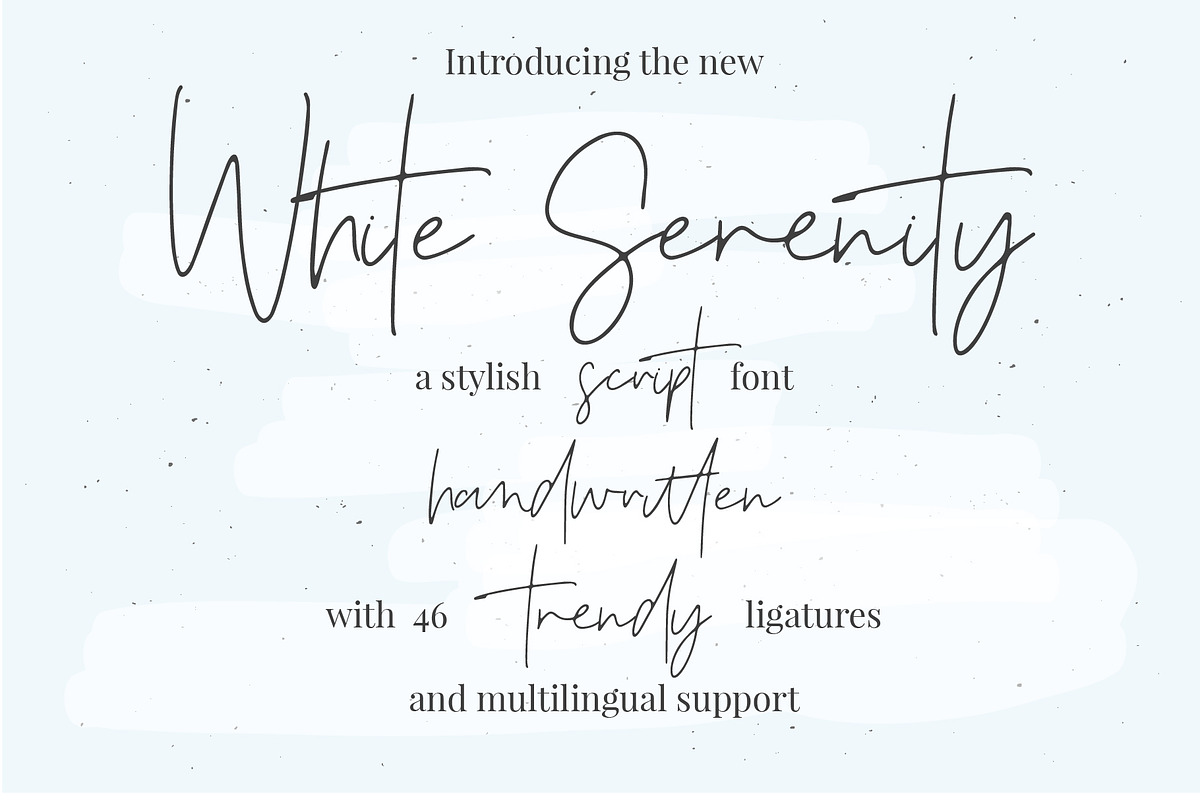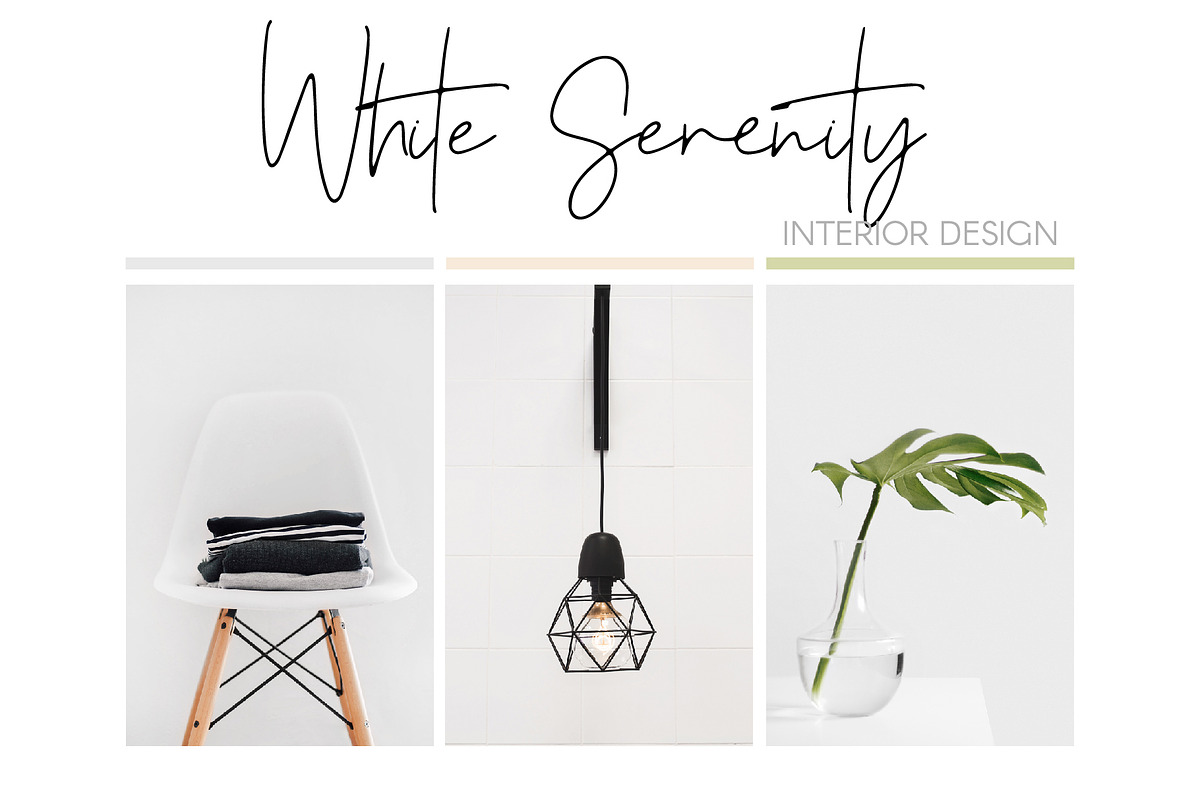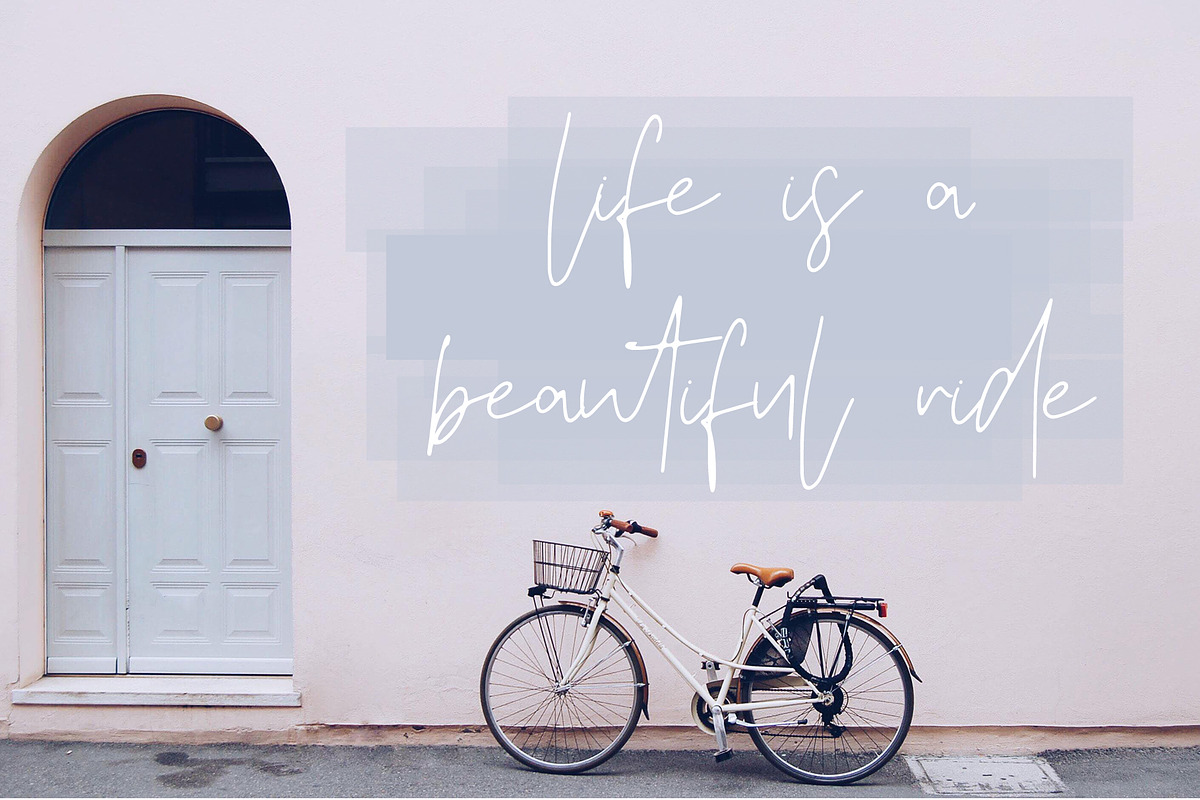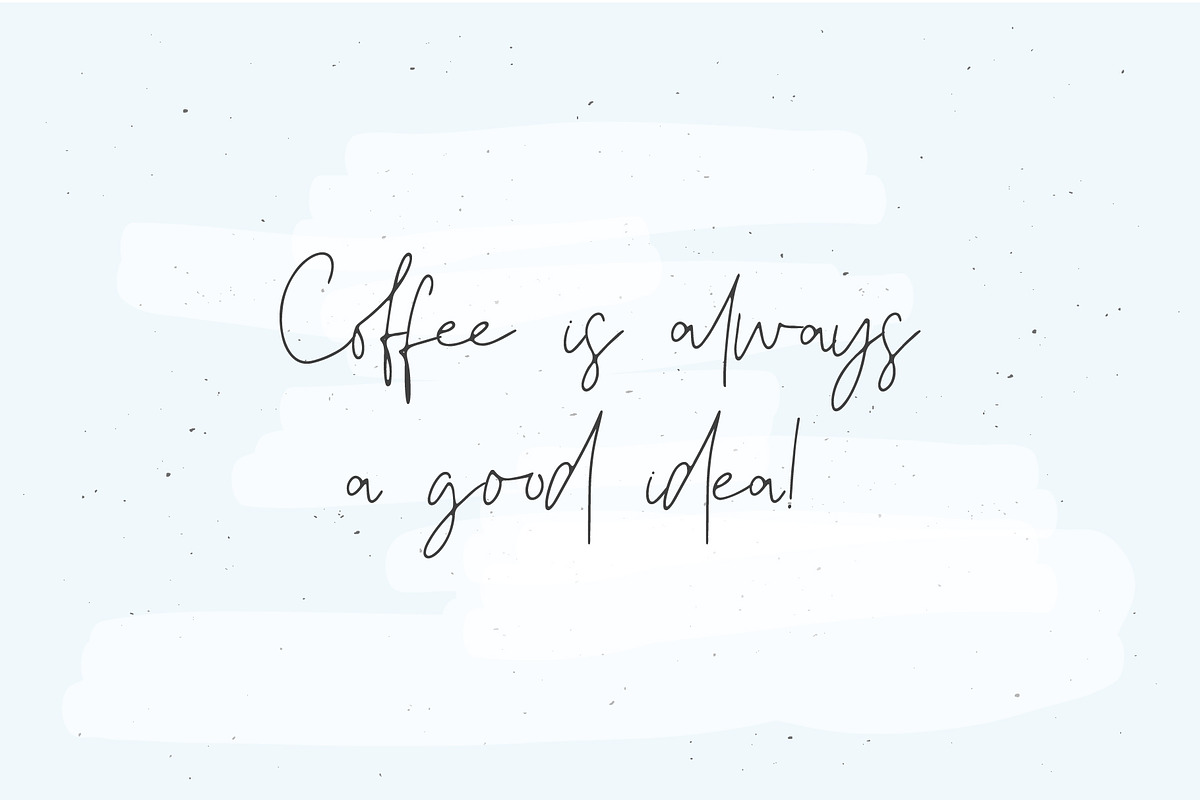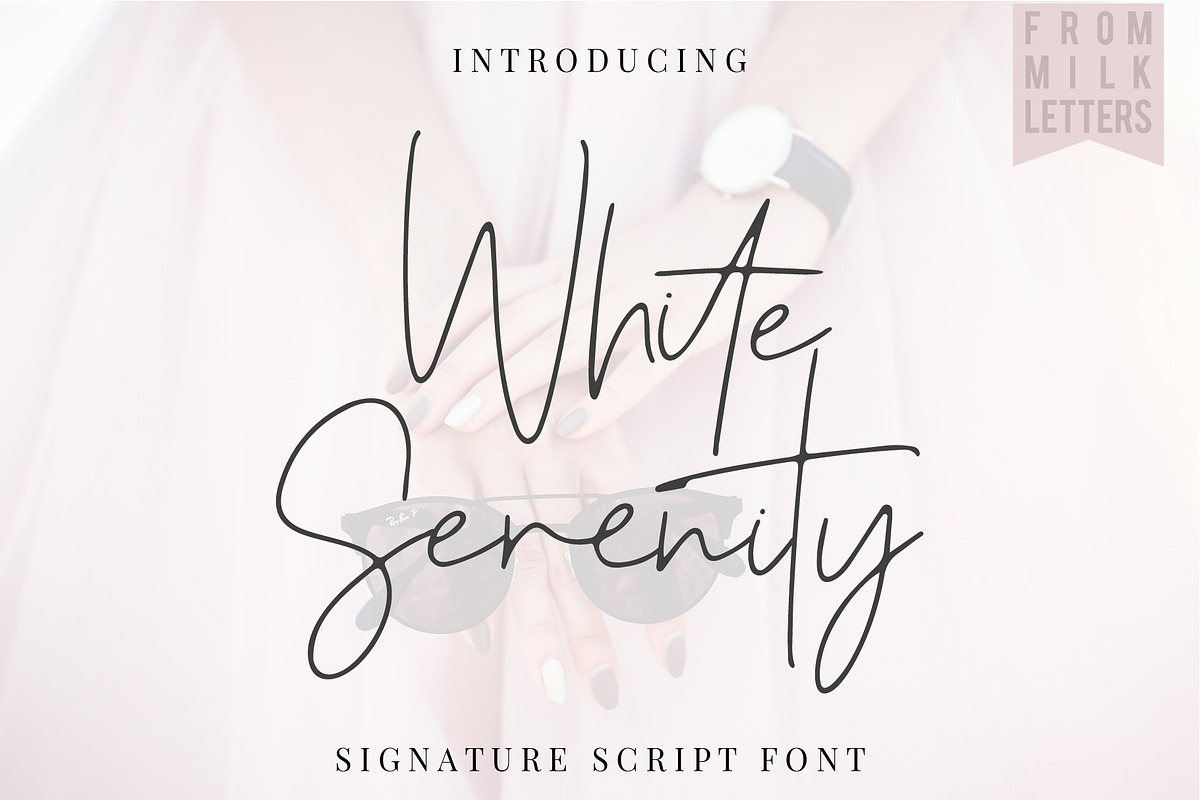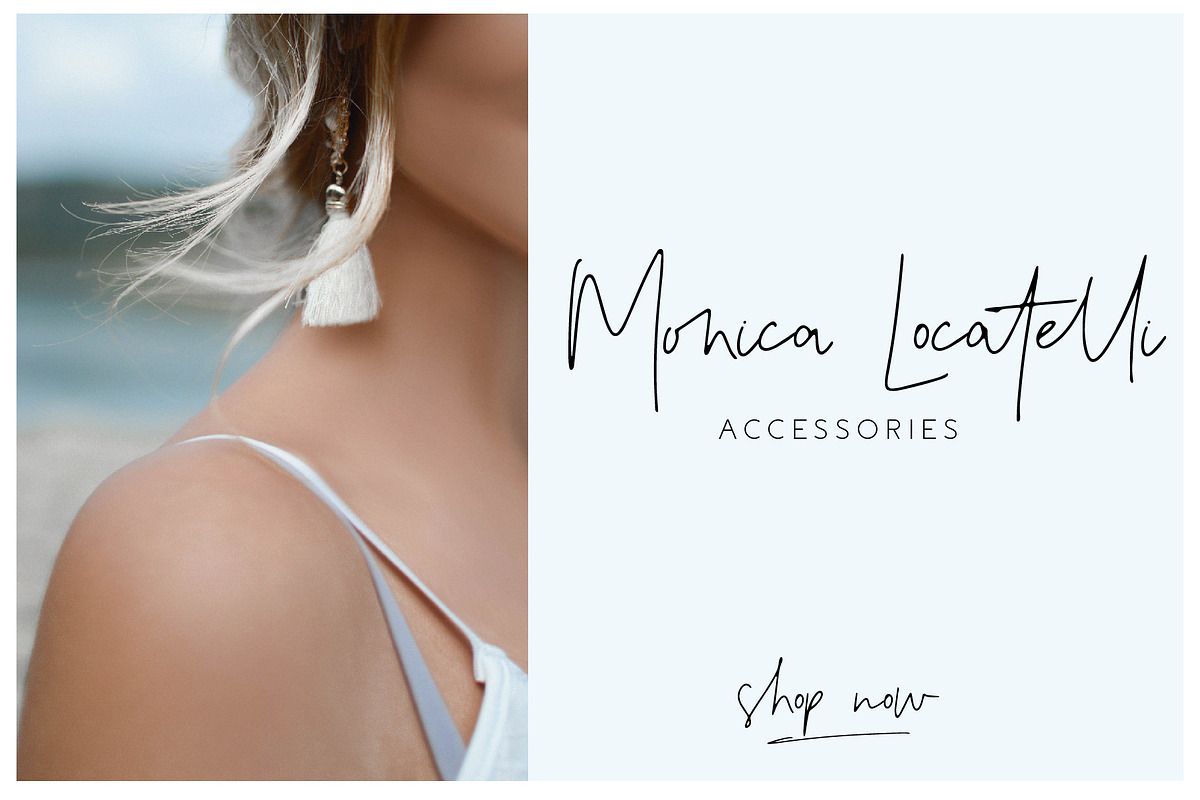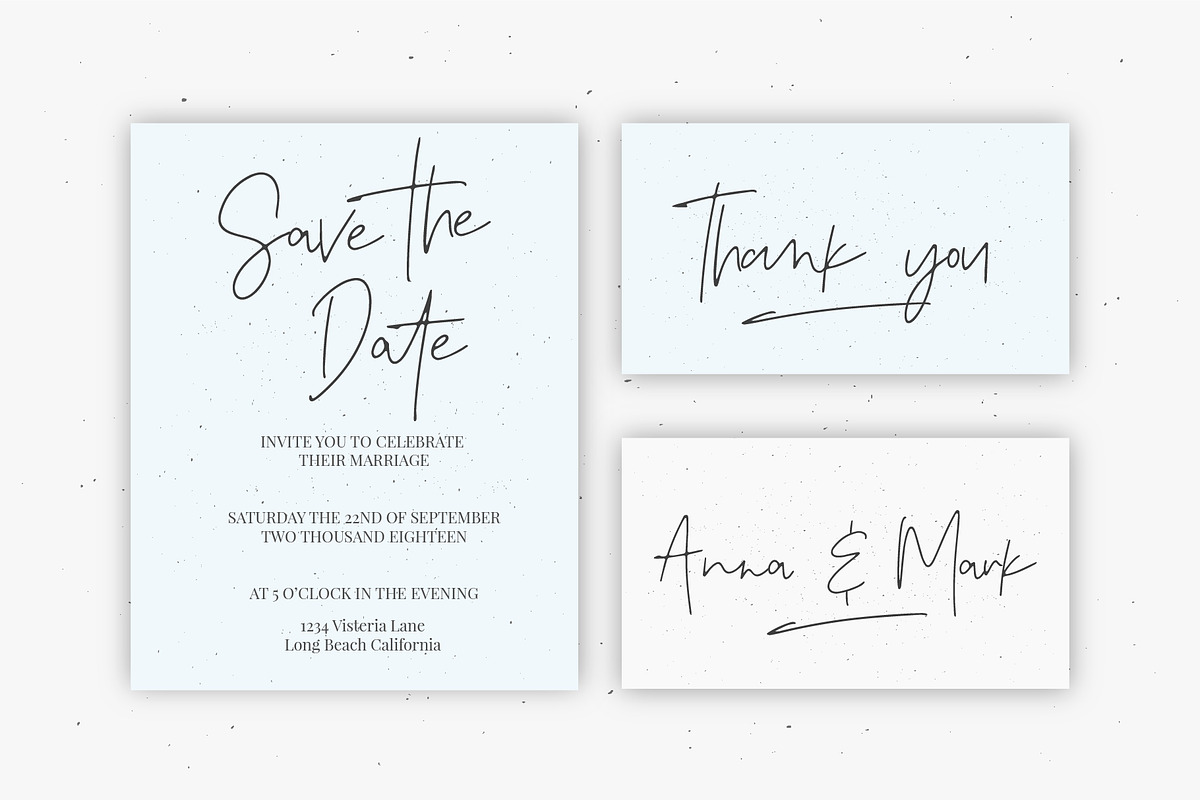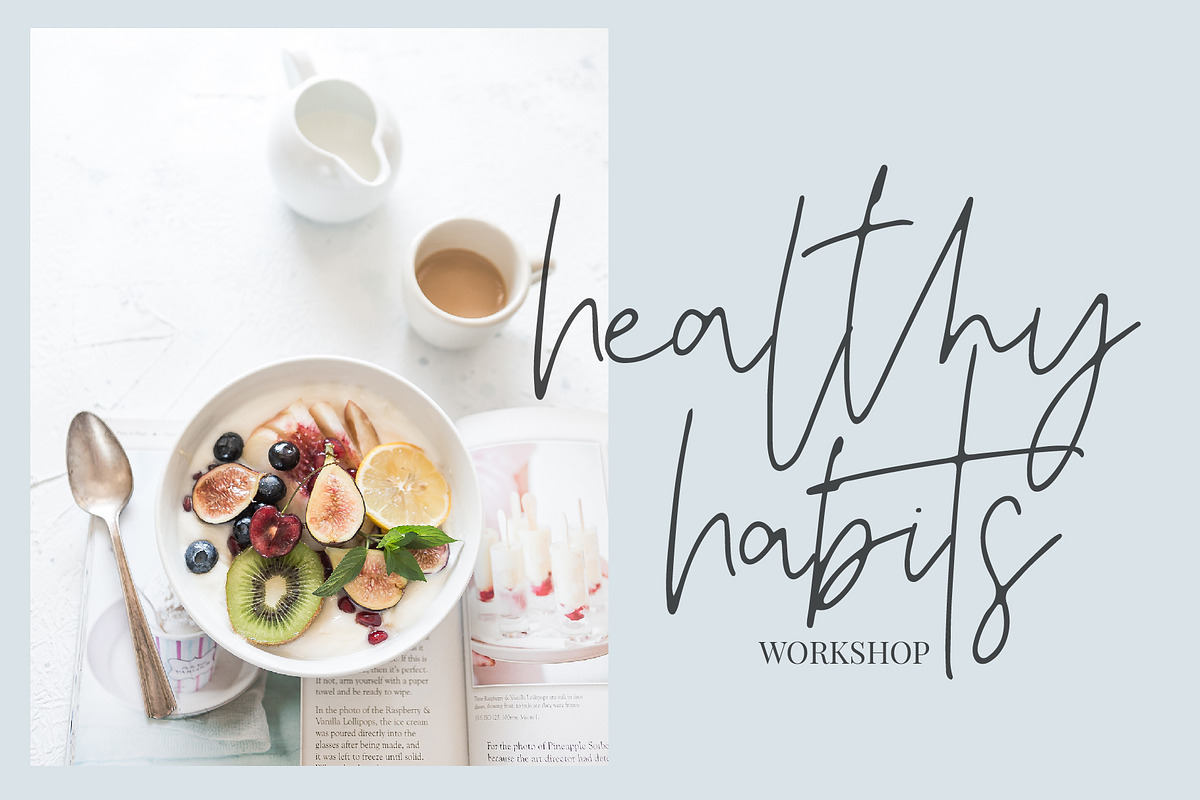
White Serenity Signature Font
Introducing the new White Serenity Signature Font is a gorgeous font with trendy ligatures
Add a hand written touch to your magazine layouts, lettering, logo designs, quotes, packaging, social media, branding, wedding invitations and cards.
Although letters in this font connect beautifully there are 32 ligatures for you to play.
Why White Serenity Signature Font is worth a look
White Serenity Signature Font by Renata Chizhikova fits naturally into Branding, posters, packaging, typography.